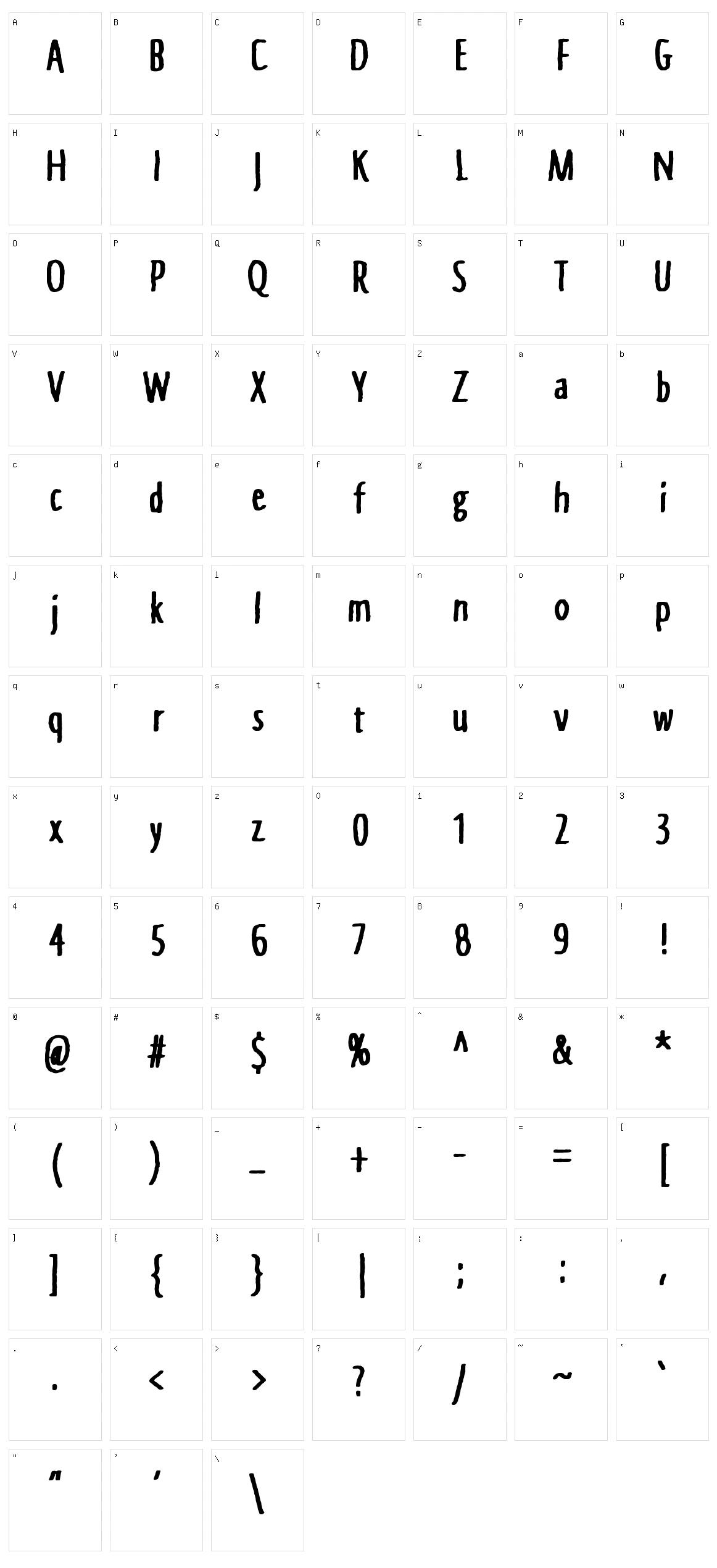
The free font Instant Nirvana is carefully designed by junkohanhero, showcasing a thoughtful balance of creativity and usability and falls under the Eroded font style. When you download the ZIP file, it contains only 131.99 KB of font files, making it lightweight and quick to download. Please review the license details below to understand permitted usage and distribution rights. If license information is not available, we recommend using this font for personal projects only or contacting the author directly for commercial usage permissions.